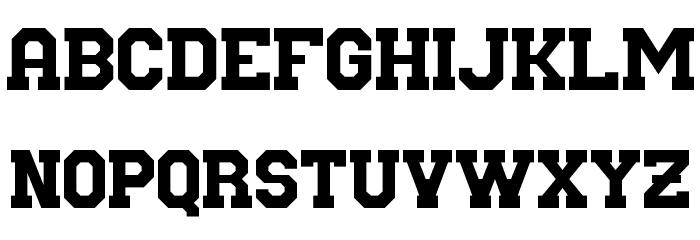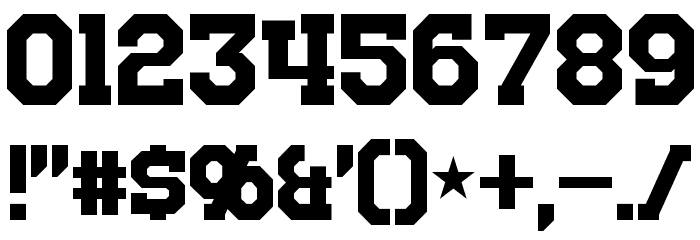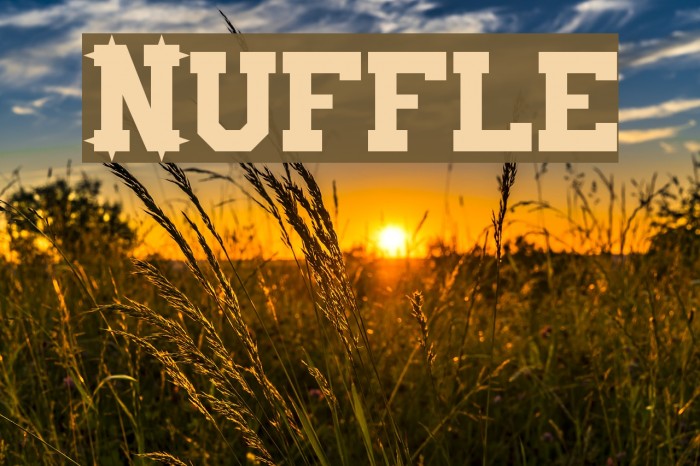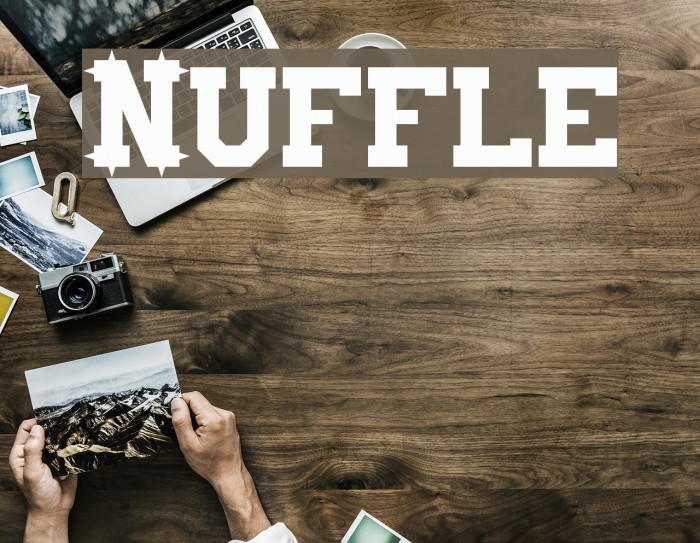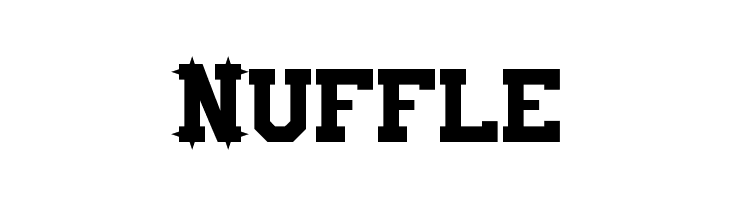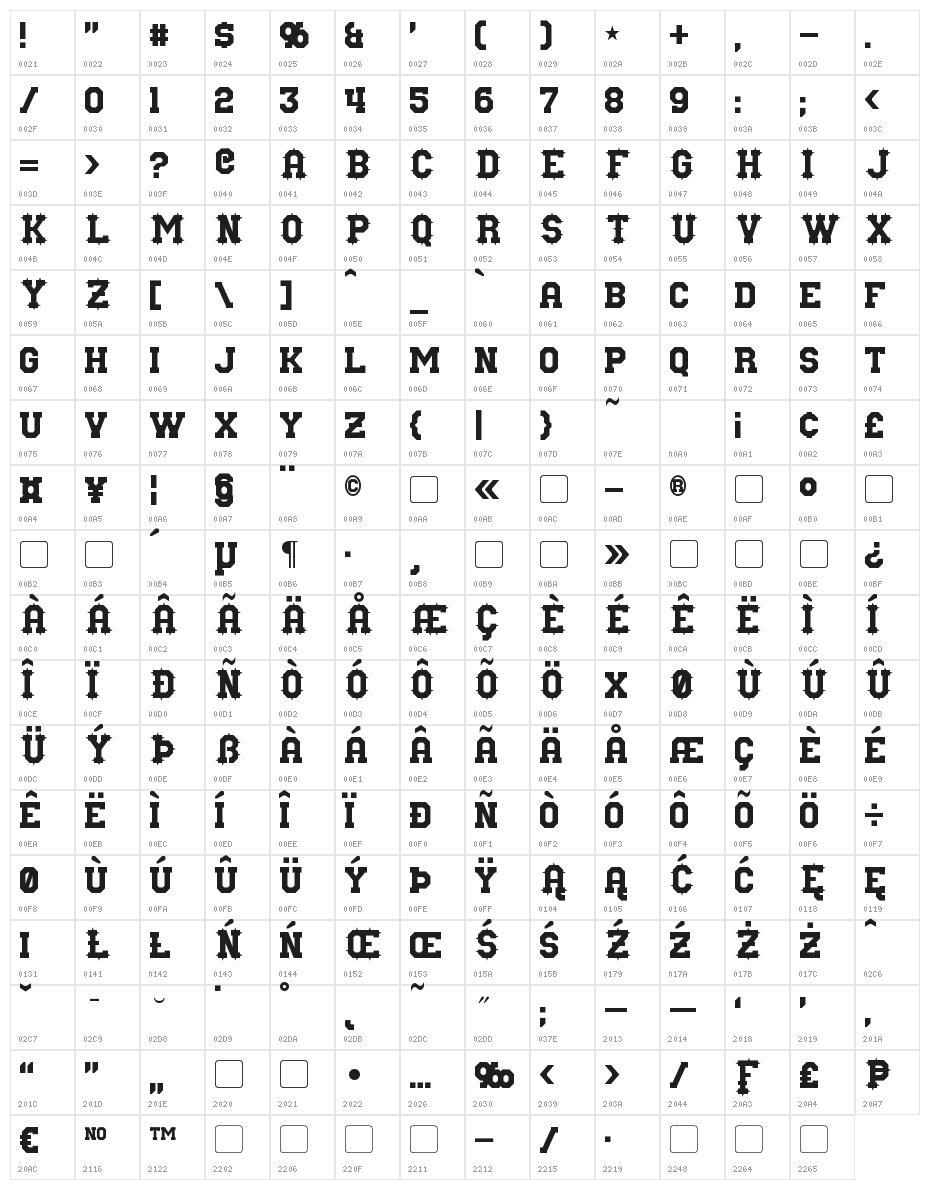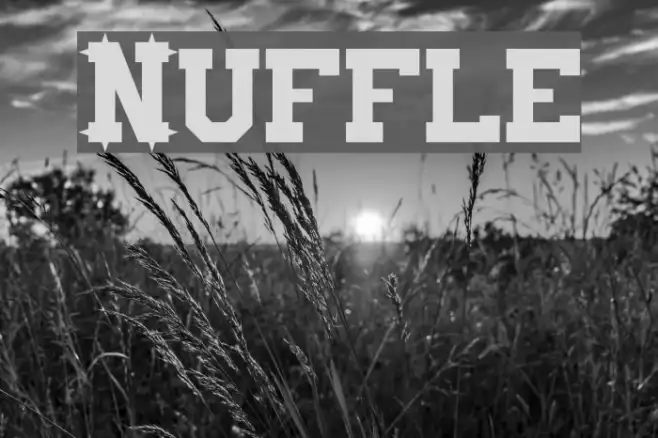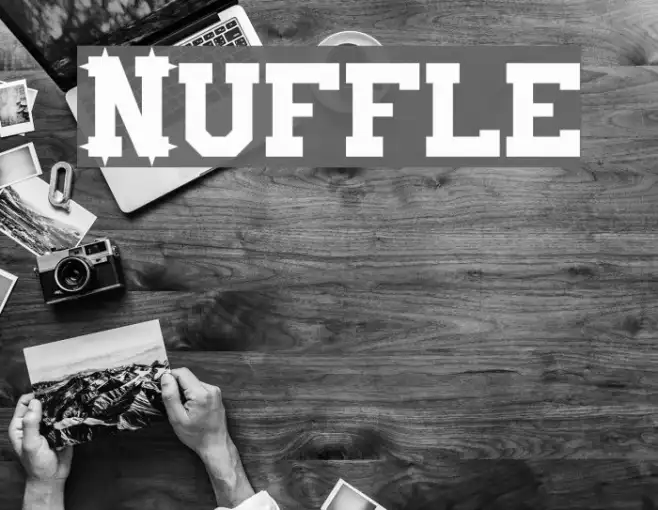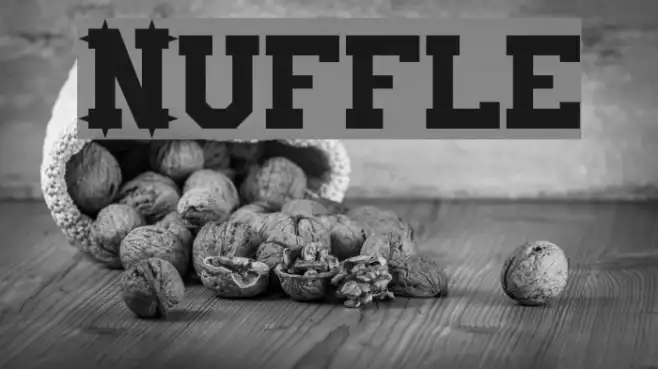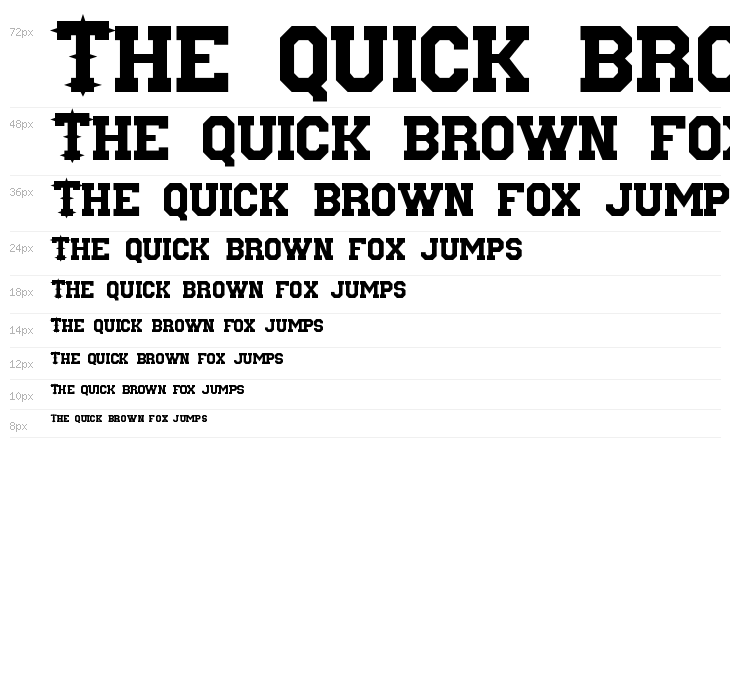
Nuffle Font
This font features a bold, geometric design with sharp, angular edges and a distinct, blocky appearance. The uppercase letters are uniform in height, with consistent stroke widths that give a strong, impactful presence. The numerals and special characters maintain this bold style, ensuring a cohesive look across all characters. The font's design is reminiscent of industrial or mechanical themes, making it suitable for projects that require a strong, assertive typeface. Its unique style is both eye-catching and memorable, ideal for making a statement.
A bold, geometric font with sharp, angular edges and a blocky appearance.
- Proposed Projects: Ideal for posters, logos, branding, and any design requiring a strong, industrial aesthetic.
- Overall Style: Industrial, Modern